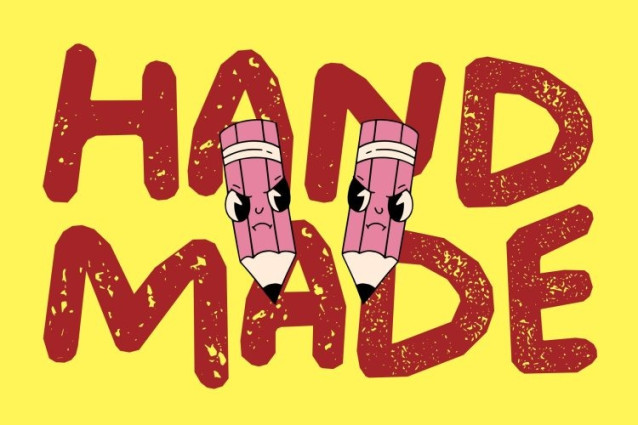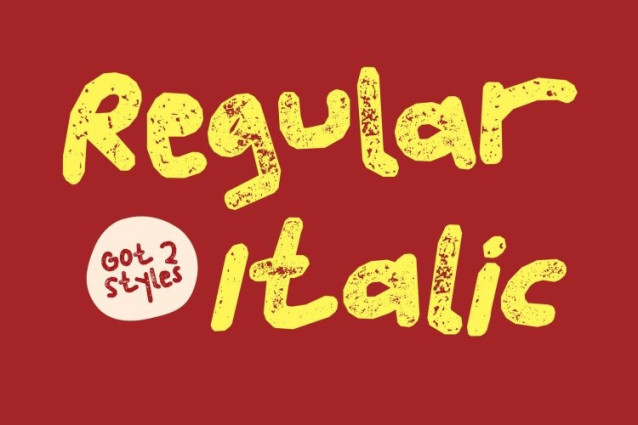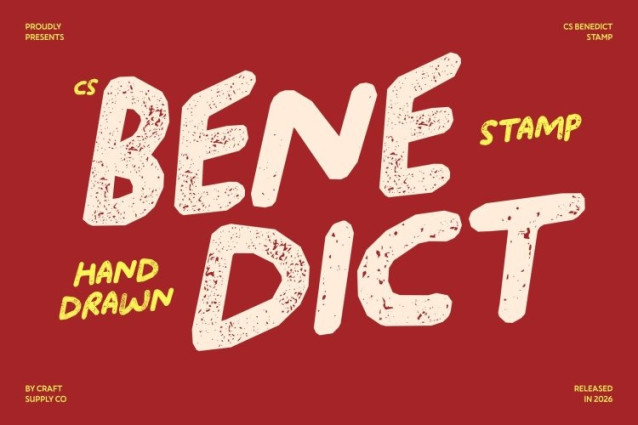
CS Benedict Stamp Font
CS Benedict Stamp Font This is a gritty, messy display font designed to look freely scribbled and delightfully irregular. Its chaotic strokes and loose handwritten structure give it a raw, expressive personality that stands out instantly. Instead of clean precision, this font celebrates spontaneity, bringing an authentic, hand-drawn charm to every letter.
Playfully Messy for Fun and Whimsical Designs
Every stroke in feels spontaneous and unrestrained, creating a playful vibe perfect for cheerful visual storytelling. The intentionally messy look mimics free, casual scribbles, making designs feel lively, youthful, and full of movement. Its quirky shapes and gritty texture inject fun and imagination into projects that need strong personality.
Vintage Character with Artistic Stamp Texture
Enhanced with a stamp effect, this font gains a distinctive vintage character and artistic depth. The stamped texture introduces subtle roughness, uneven ink distribution, and worn details that recall old prints, handmade posters, and classic DIY artwork. This aged, imperfect surface gives the font an old-design feel adding warmth, nostalgia, and tactile authenticity to every composition.
Perfect for Fun Branding, Posters, and Casual Visuals
From expressive posters and casual branding to social media graphics and playful product packaging, delivers strong visual impact with its messy, energetic charm. The vintage stamp effect helps set an informal, creative tone perfect for designs that embrace spontaneity, nostalgia, and bold artistic expression.